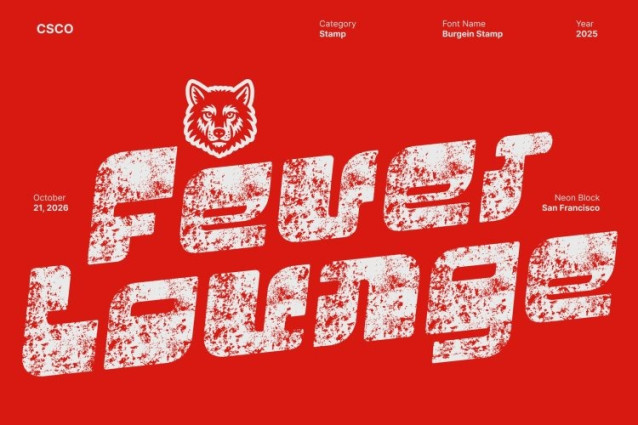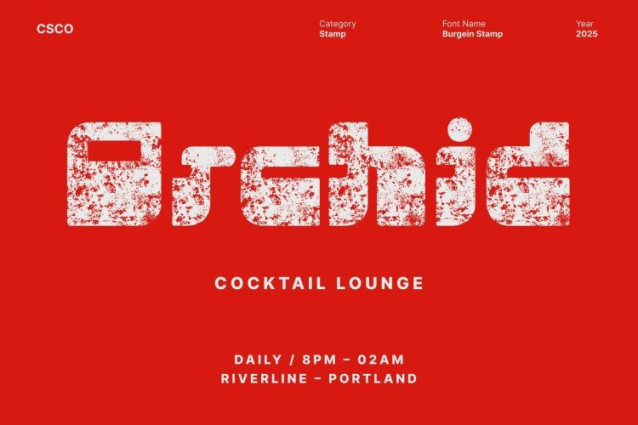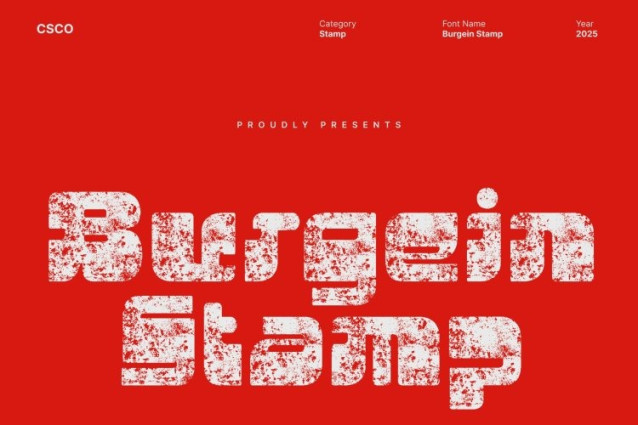
Burgein Stamp Font
Burgein Stamp Font This is a powerful display sans serif font designed to dominate any layout with its strong, commanding presence. Built for bold communication, it delivers instant attention and confidence perfect for projects that demand loud, clear, and unforgettable typography.
Strong Sans Serif Construction for Clear, Attention-Grabbing Design
With its bold shapes and clean sans serif architecture, this font excels in visibility and readability. Every letter is crafted to appear solid and impactful, making it ideal for headlines, logotypes, posters, and branding materials where clarity and strength are essential.
Stamp Texture Adds Grit, Character, and Expressive Detail
What sets this font apart is its textured stamp effect. This organic, imperfect finish adds depth and personality, giving each character a handcrafted, expressive look. The textured surface enhances its visual energy, making designs feel more dynamic, artistic, and authentic.
Ideal for Branding, Headlines, Posters, and High-Impact Layouts
Whether used in bold branding, striking poster designs, or standout editorial headlines, this font brings an unmistakable presence to any project. Its combination of a strong sans serif form with rugged stamp texture makes it perfect for designers seeking a font that blends power, artistry, and visual storytelling.